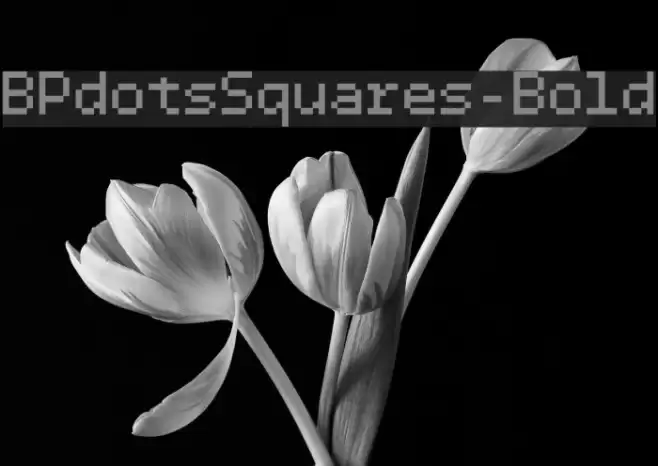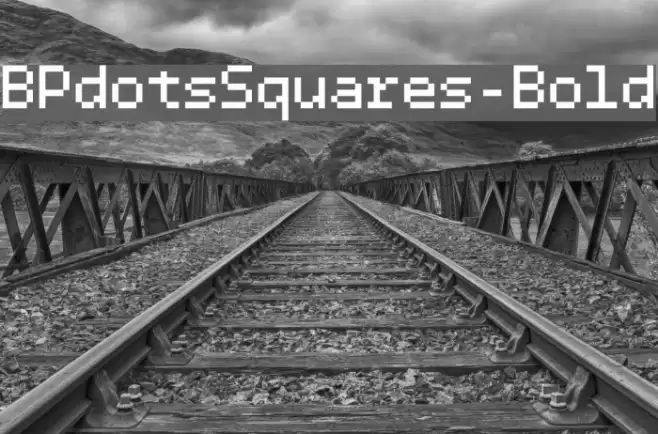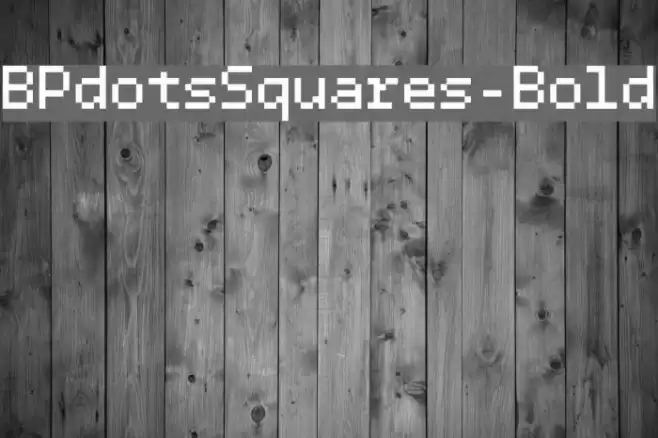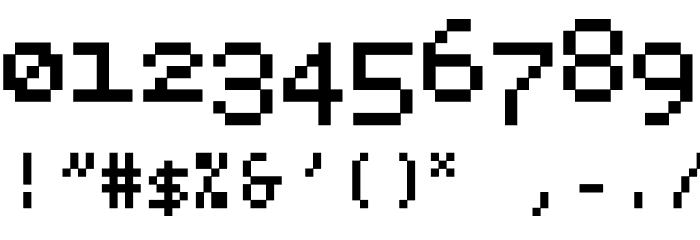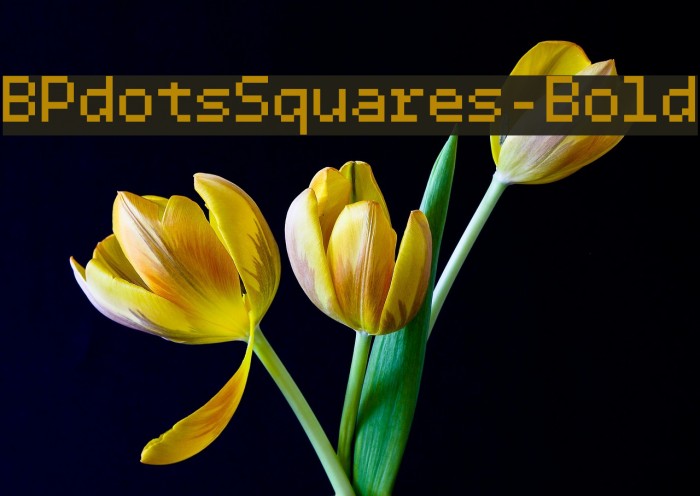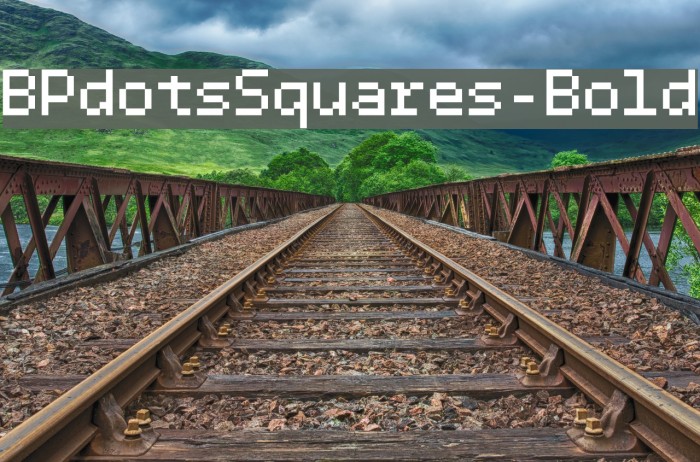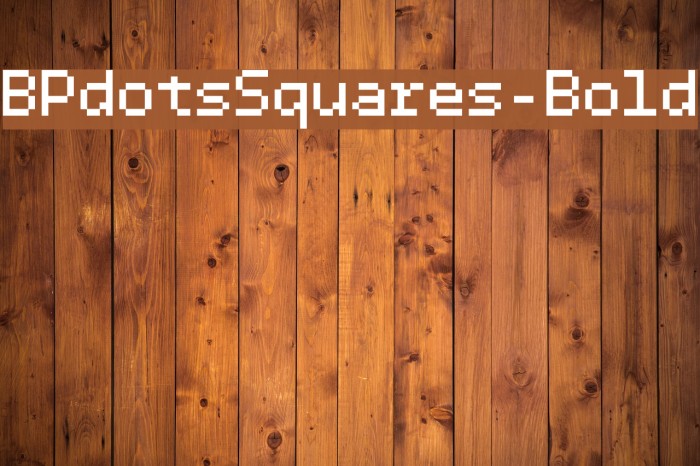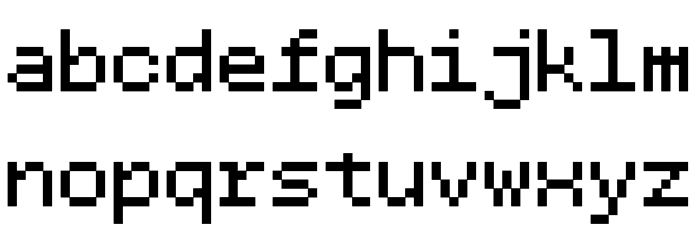
BPdotsSquares-Bold Font
BPdotsSquares-Bold Description
This font features a pixelated, grid-like design that evokes a retro, digital aesthetic reminiscent of early computer graphics and video games. Each character is composed of square dots, creating a blocky and geometric appearance. The uniformity and simplicity of the design make it highly legible, even at smaller sizes. The font includes a full set of uppercase and lowercase letters, numerals, and a variety of special characters, all maintaining the consistent pixelated style. Its bold weight enhances the visibility and impact of the text, making it suitable for attention-grabbing headlines or digital-themed projects.
A pixelated, bold font with a retro digital aesthetic from Uncategorized fonts.
- Proposed Projects: Ideal for video game design, digital art projects, retro-themed posters, and tech-related branding.
- Overall Style: Retro, Digital
- Use Case: Headlines, Logos, Digital Art